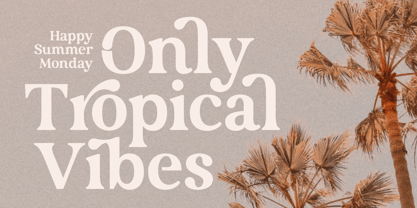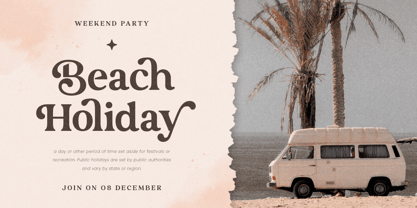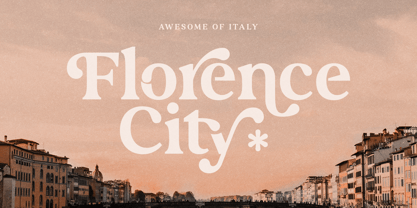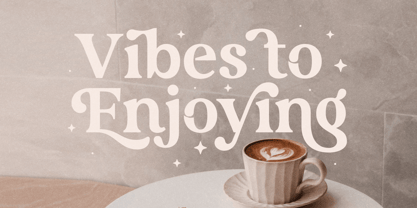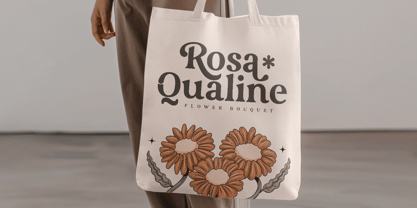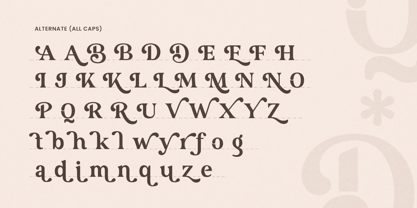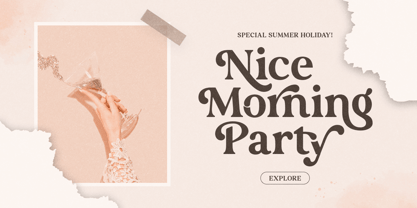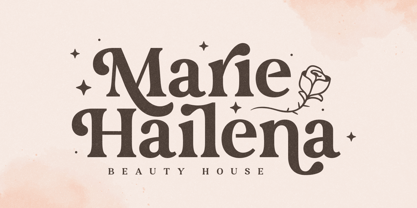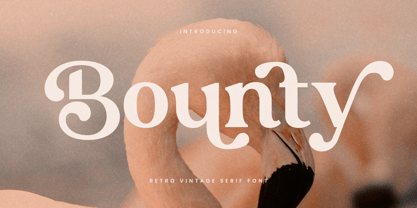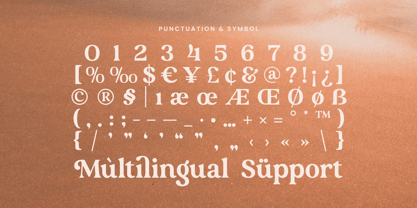
Bounty
Bounty - Retro Vintage Serif
Bounty is a retro vintage serif font that brings a touch of nostalgia and elegance to your design projects. Inspired by classic typography, Bounty combines a timeless feel with a fancy flair, making it an ideal choice for logos, branding, and editorial design. Its strong, distinctive characters are perfect for anyone looking to create a lasting impression.
The design of Bounty was born out of a love for vintage aesthetics and the desire to bring them into the modern world. Its serif details and stylish alternates give it a unique look that is both classy and versatile, making it suitable for a wide range of creative applications. Whether you're designing for print or digital, Bounty will add a sophisticated touch to your work.
With Bounty, you’ll have access to ligatures, alternate characters, and multilingual support, giving you the flexibility to craft your designs with precision and creativity. It's more than just a font; it's a tool to elevate your brand and capture attention.
Bounty Retro Vintage Serif Features:
• Unique Ligature & Alternate Characters Ready
• Punctuation, Number, and Symbol
• Uppercase and Lowercase
• Multilingual Support
• Opentype Features